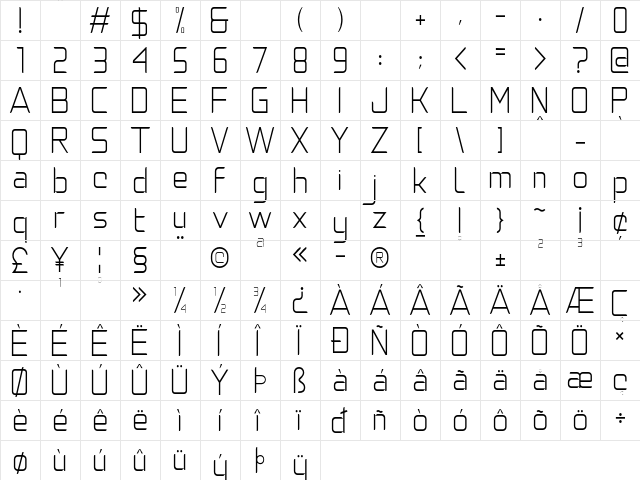
Natalisa Thin Demo Thin
| Designer | Sabrcreative Studio |
Design Context for Natalisa Thin Demo Typeface
Natalisa Thin Demo is a composed and adaptable typeface that performs quietly and consistently across a wide range of design contexts. Its slender proportions lend an understated elegance to any composition.